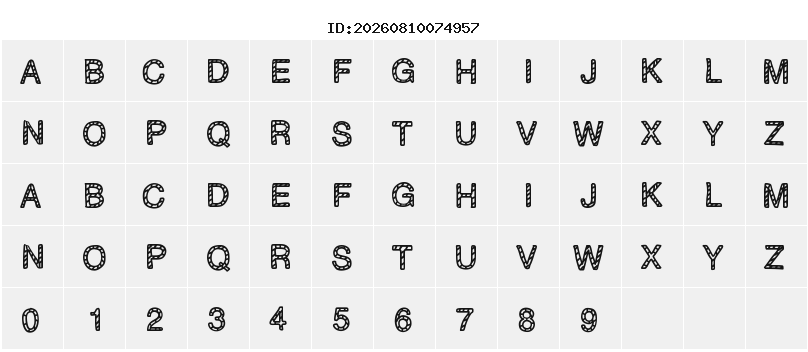
PLAQUEZIP Preview
About PLAQUEZIP.ttf
PLAQUEZIP.ttf is a modern, elegant sans-serif font designed for ultimate readability and visual harmony. Perfect for branding, headlines, web design, and print materials.